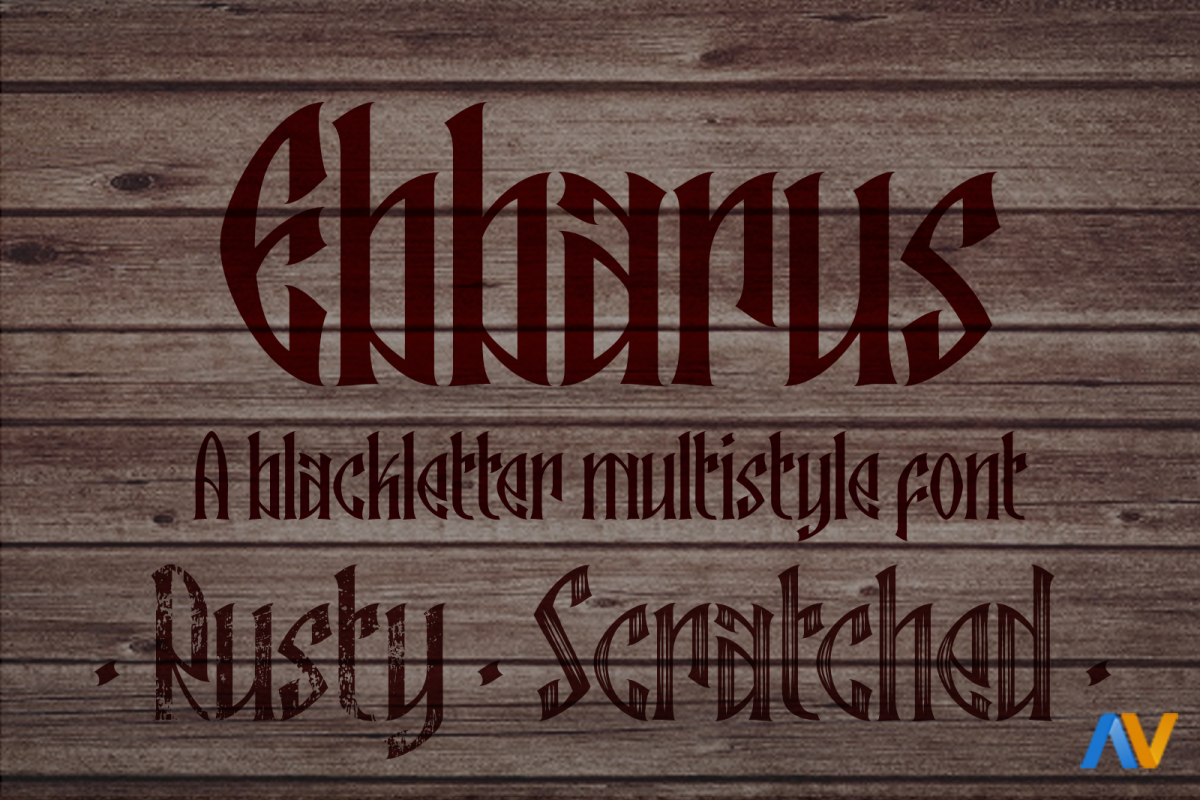
Ebbarus
A blackletter multistyle font with a old touch font. You can have a rusty and worn out style. Other style is the scratched one. And the regular font, of course. You can mix the 3 styles for do awesome effects. Ebbarus 2020 is the new font of Albertako's fonts.